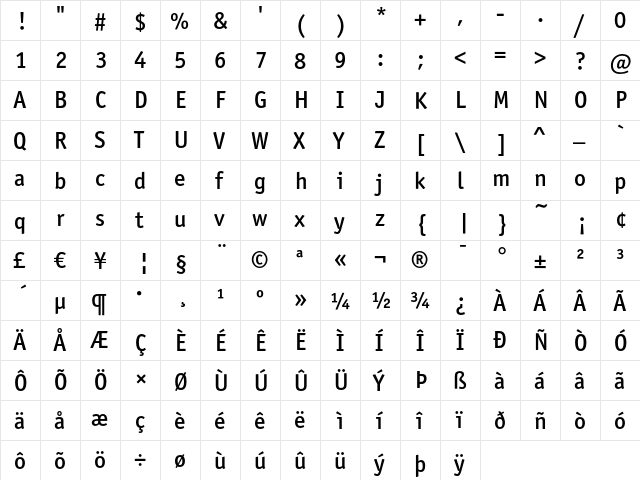
OfficinaSanITC Regular
Design Context for OfficinaSanITC Typeface
OfficinaSanITC takes a measured approach to typography — its balanced proportions and neutral character make it a reliable workhorse for both digital and print work.
Pro Tip: Pair OfficinaSanITC with a font of contrasting weight or personality to build a more expressive typographic hierarchy.